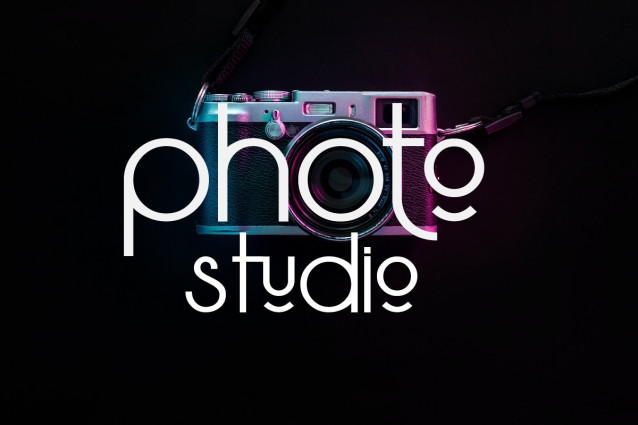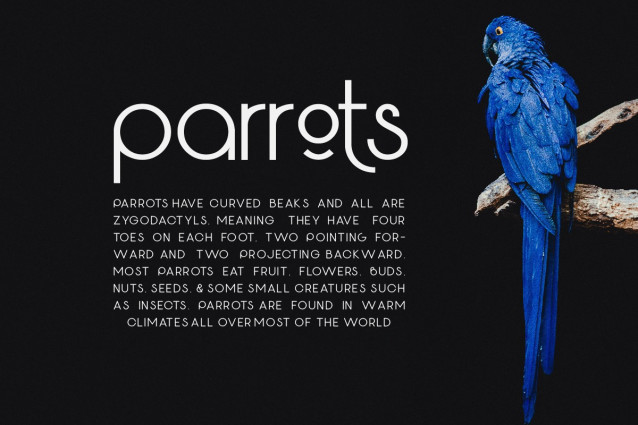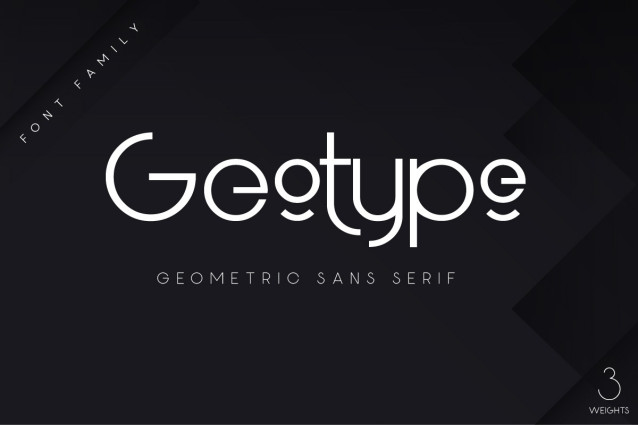
Geotype Font
Geotype Font is typeface inspired by circle shapes simple but significant, and defined by its crisp edges and modern touches. It is designed for optimal legibility. An lowercase is unique with some alternates, Geotyface makes a statement without making a scene.